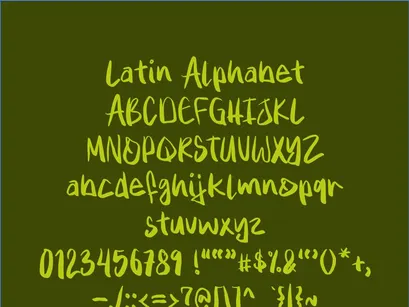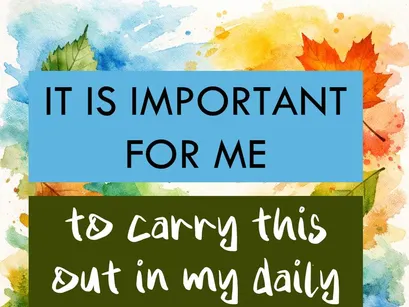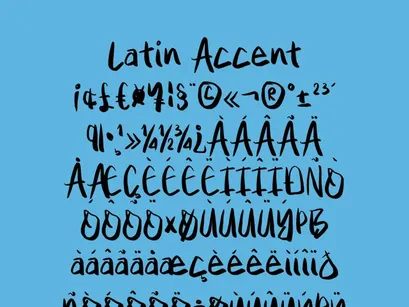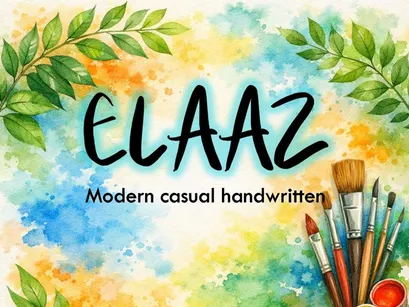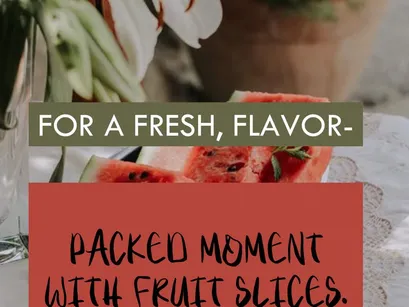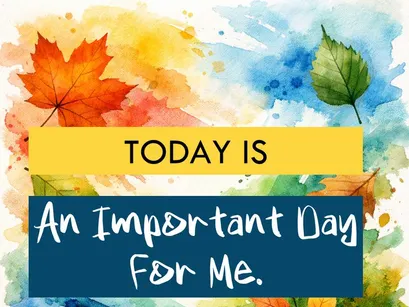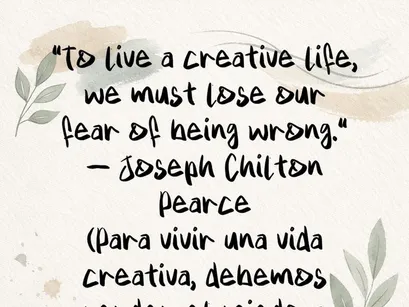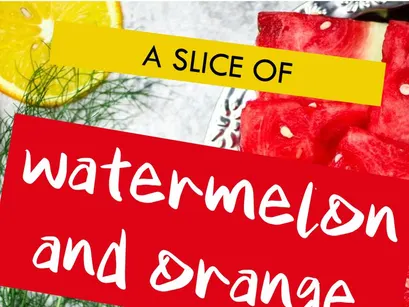
ELAAZ – Modern Casual Handwritten Font (OTF)
ELAAZ
ELAAZ is a modern, casual handwritten typeface featuring cheerful, fluid strokes that evoke creativity and a natural feel. Designed for projects seeking a human, artistic, and positive style, it conveys energy and authenticity in every word.
Perfect for planners, inspirational quotes, artisanal packaging, creative branding, and digital content with a personal touch.